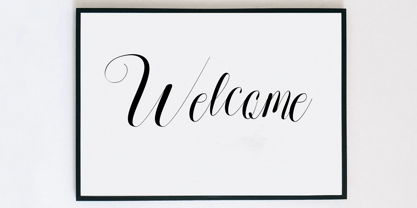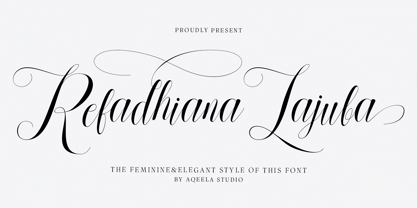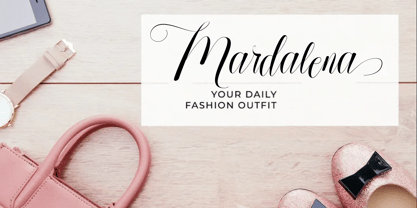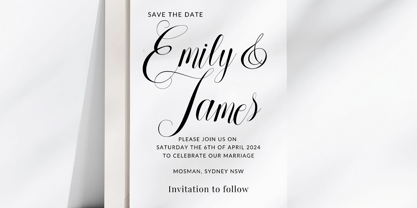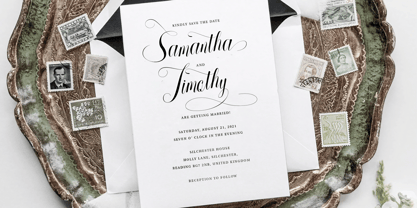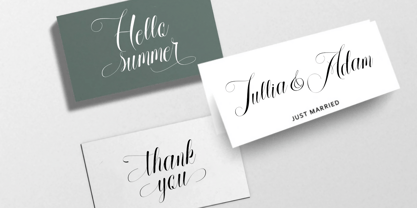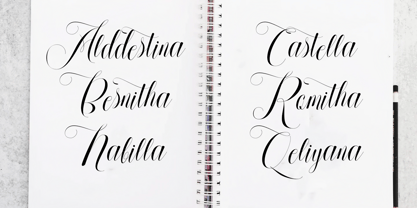
Refadhiana Lajuba
by Aqeela Studio
The Refadhiana Lajuba Font Family was designed by Muhammad Nasir and published by Aqeela Studio. Refadhiana Lajuba contains 1 styles. More about this family
Reladiana Lajuta: Where grace whispers on the page. This font captures the essence of feminine elegance with its flowing curves and delicate serifs. It's a design that evokes a sense of timeless beauty and gentle sophistication, perfect for projects that require a touch of heartfelt refinement.
Designers: Muhammad Nasir
Foundry: Aqeela Studio